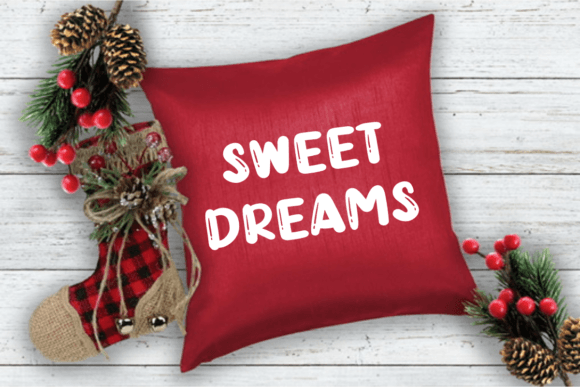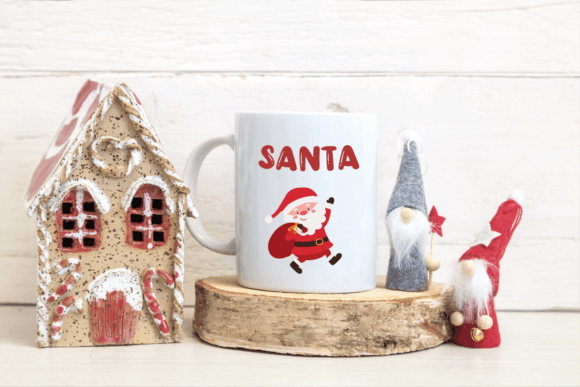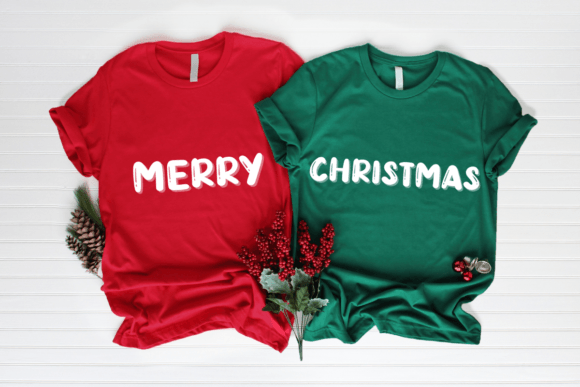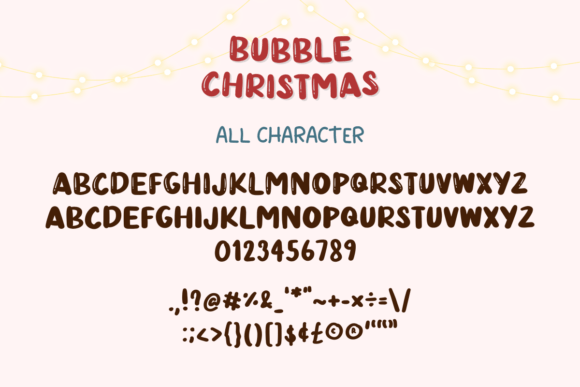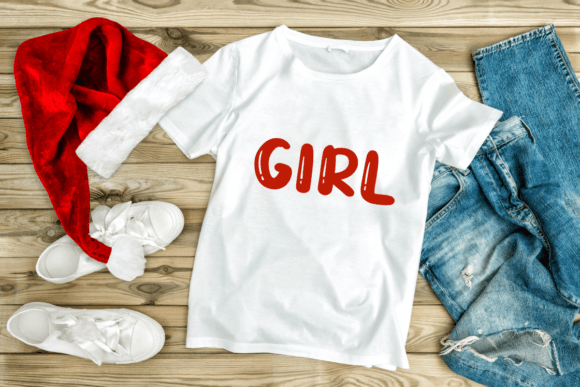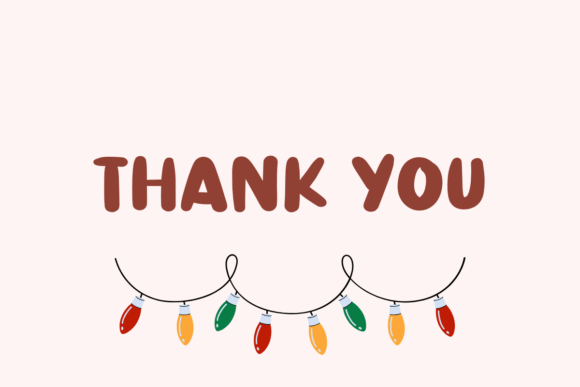
Bubble Christmas Font: Add a Playful Touch to Your Festive Designs
Are you looking for a font that captures the whimsical spirit of the holiday season? Look no further than the Bubble Christmas Font! This adorable display font is perfect for designers and crafters who want to add a playful touch to their festive projects. In this article, we’ll dive into the details of this unique font and explore its features, benefits, and uses.
What is Bubble Christmas Font?
Bubble Christmas Font is a one-of-a-kind display font that embodies the fun and playfulness of the holiday season. Its quirky and charming design makes it an excellent choice for a variety of projects, from Christmas cards and invitations to winter-themed crafts and decorations.
Key Features of Bubble Christmas Font
- Cute and Playful Design: Bubble Christmas Font boasts a unique and eye-catching design that’s sure to capture the attention of your audience.
- Festive and Winter-Themed: This font is specifically designed for festive and winter-themed projects, making it perfect for Christmas, Hanukkah, or any other winter celebration.
Benefits of Using Bubble Christmas Font
So, why choose Bubble Christmas Font for your festive designs? Here are just a few benefits:
- Adds a Personal Touch: This font’s playful design allows you to add a personal touch to your projects, making them stand out from the crowd.
- Versatile: Bubble Christmas Font can be used for a wide range of projects, from digital designs to print materials.
Uses for Bubble Christmas Font
Bubble Christmas Font is perfect for a variety of festive and winter-themed projects, including:
- Christmas Cards and Invitations: Create personalized and eye-catching cards and invitations for your loved ones.
- Winter Crafts and Decorations: Add a playful touch to your winter crafts and decorations, such as snowflakes, garlands, and gift tags.
- Digital Designs: Use Bubble Christmas Font to create festive digital designs, such as social media graphics, blog posts, and email newsletters.
- Print Materials: Incorporate this font into your print materials, such as flyers, brochures, and posters.
Tips and Tricks for Using Bubble Christmas Font
Here are a few tips and tricks to help you get the most out of Bubble Christmas Font:
- Experiment with Colors and Textures: Try pairing Bubble Christmas Font with different colors and textures to create unique and eye-catching designs.
- Mix and Match with Other Fonts: Combine Bubble Christmas Font with other fonts to create interesting and dynamic typography.